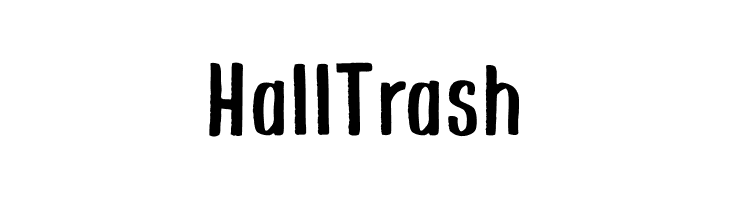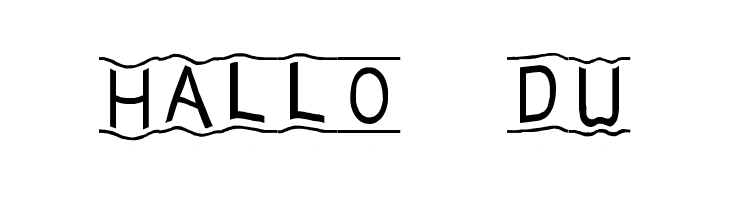
A playful, wavy font with bold uppercase letters and a whimsical style.
A bold, jagged font with sharp, thorny edges, ideal for Halloween themes.
A bold, hand-drawn font with an expressive, graffiti-like style.
A decorative Halloween-themed font with playful and spooky icons.
A bold, brush-style font with dynamic, expressive strokes.
A playful, handwritten-style font with bold, rounded characters.
A spooky, cobweb-themed font perfect for Halloween designs.
A bold, jagged font with a playful, spooky Halloween theme.
A dramatic, edgy font with sharp, angular strokes and a dynamic appearance.
A bold, dripping font ideal for spooky, Halloween-themed designs.